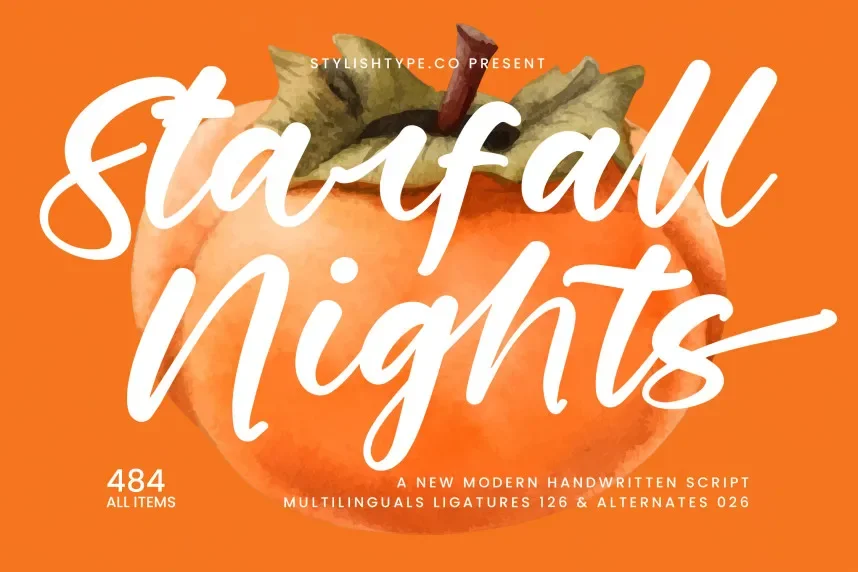
Starfall Nights Font is a decorative display typeface designed for atmospheric and themed visuals. Designers often require fonts that convey mood without sacrificing clarity. Starfall Nights balances decorative elements with readable letter structures.
This font belongs to the display category. Its letterforms feature stylized curves, controlled stroke variation, and consistent spacing. The font remains legible at medium to large sizes, making it suitable for titles and short phrases.
Starfall Nights works well for event posters, album artwork, branding, social media graphics, and creative projects. Designers usually pair it with a clean sans-serif to keep layouts readable.